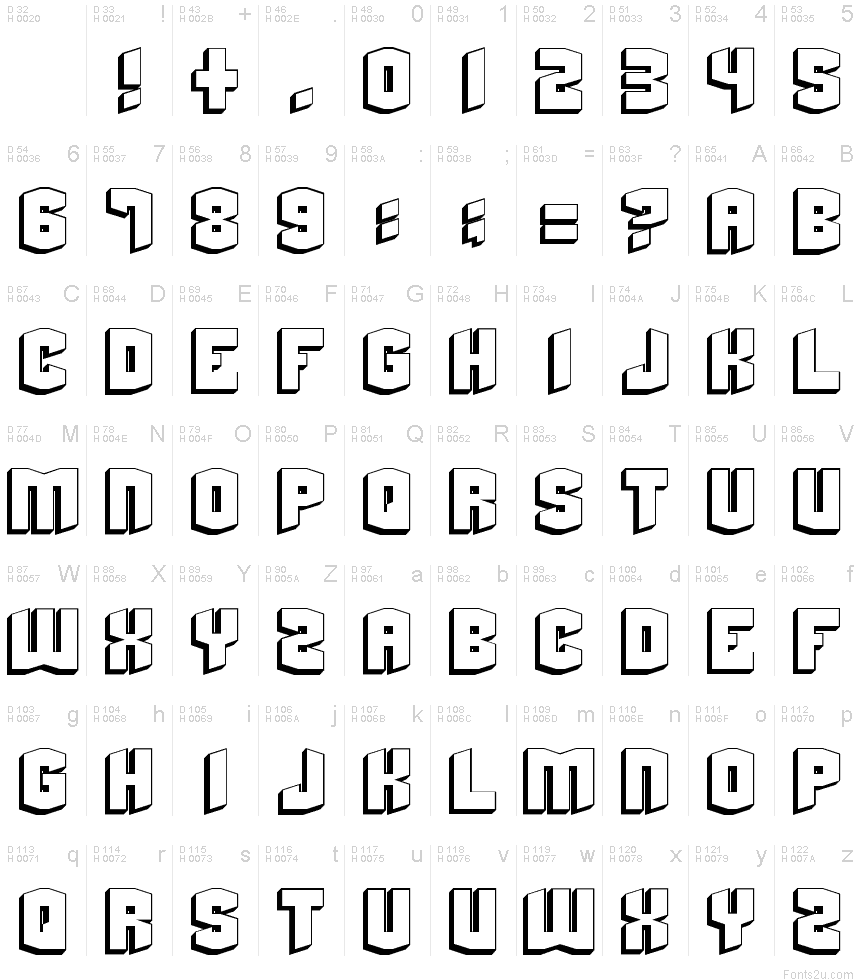
BeyondControl
BeyondControl font by Jakob Fischer is a free techno display typeface with a sharp, mechanical swagger. Its chunky, beveled letterforms and hollow vertical cores feel like they were cut from steel panels, outlined in inky black for a bold, poster-ready punch. The tight rhythm and consistent block geometry give headlines a heavy, unshakable presence that still feels playful and energetic.
Using BeyondControl, you can push game logos, esports branding, sci‑fi book covers, event posters, and YouTube thumbnails into a louder, more futuristic space. This free font shines when set large in all caps; pair it with a clean geometric sans for body copy to keep layouts readable while the title steals the spotlight.